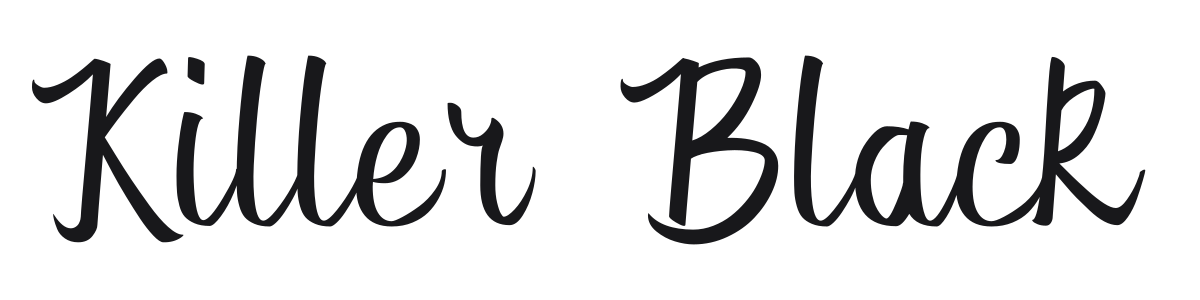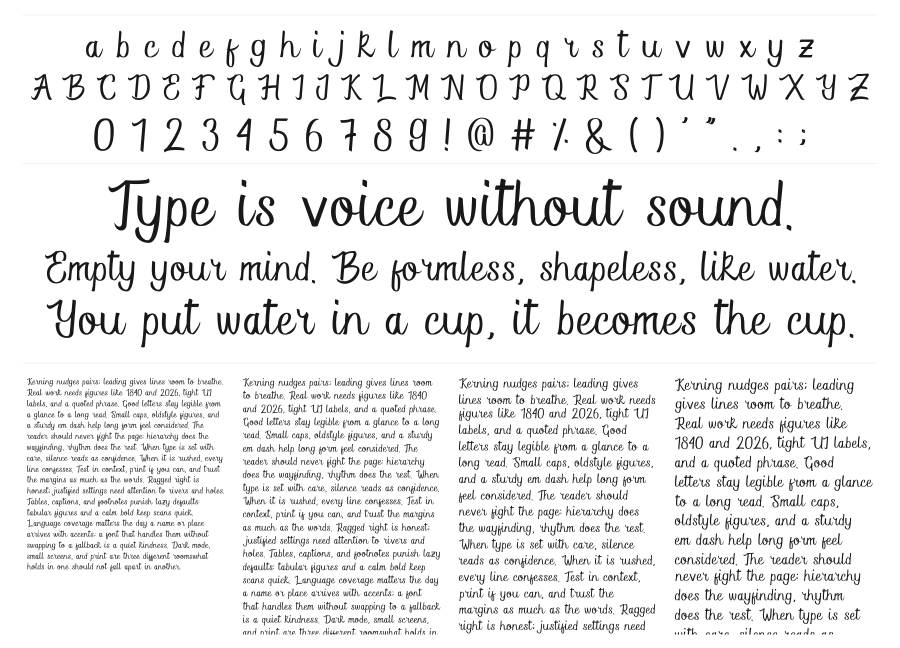
Killer Black
Killer Black is a contemporary brush script drawn with a medium-weight pen brush, giving it a smooth, flowing feel with consistent ink-like texture. The connected letters move with natural rhythm and gentle loops that read as casual but polished. It suits branding, packaging, apparel, and any context calling for a modern signature aesthetic.